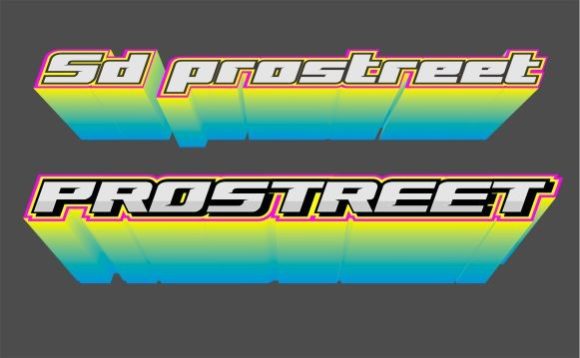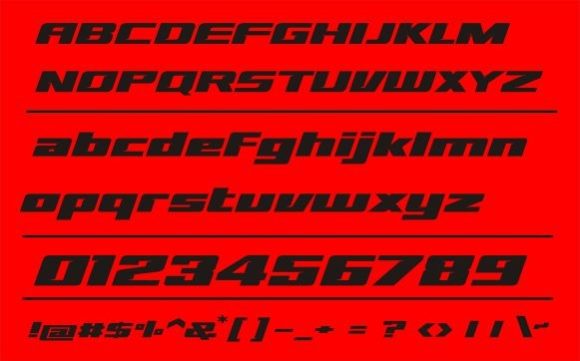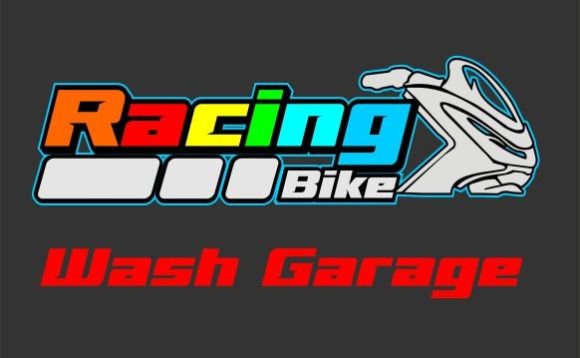
Sd Prostreet Font
About the Sd Prostreet Font
The Sd Prostreet Font offers a perfect balance of form and function for your design needs. Sd Prostreet is a modern and techno looking display font. It is the perfect font for any sport or racing-themed project, such as logos, posters, games, product designs and much more.
Sd Prostreet Font Usage Examples
Sd Prostreet Font Example